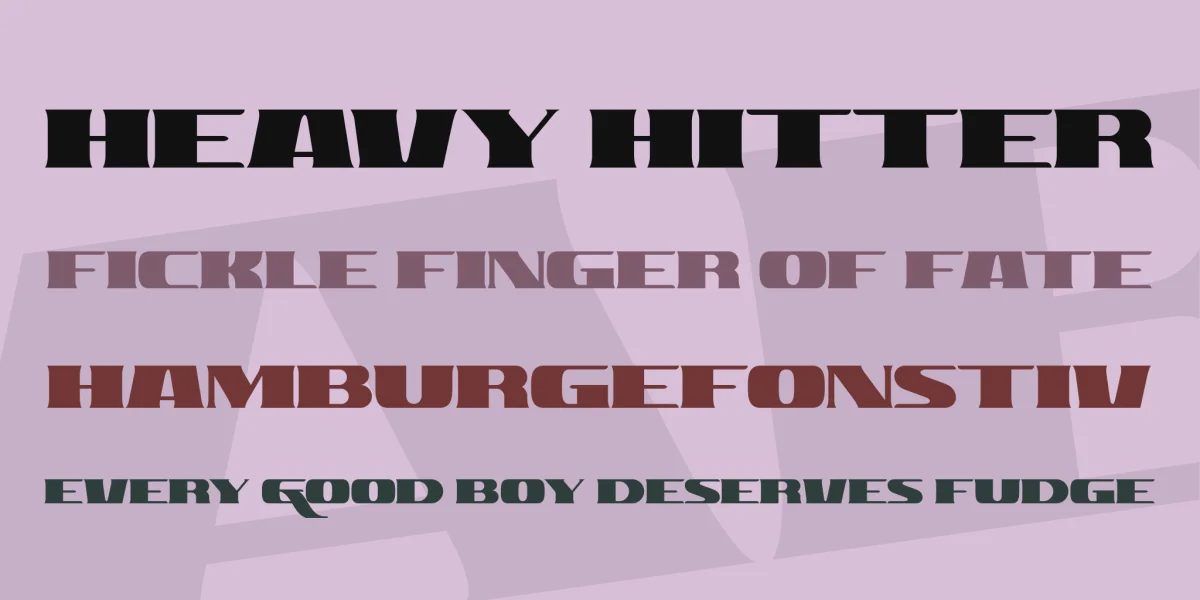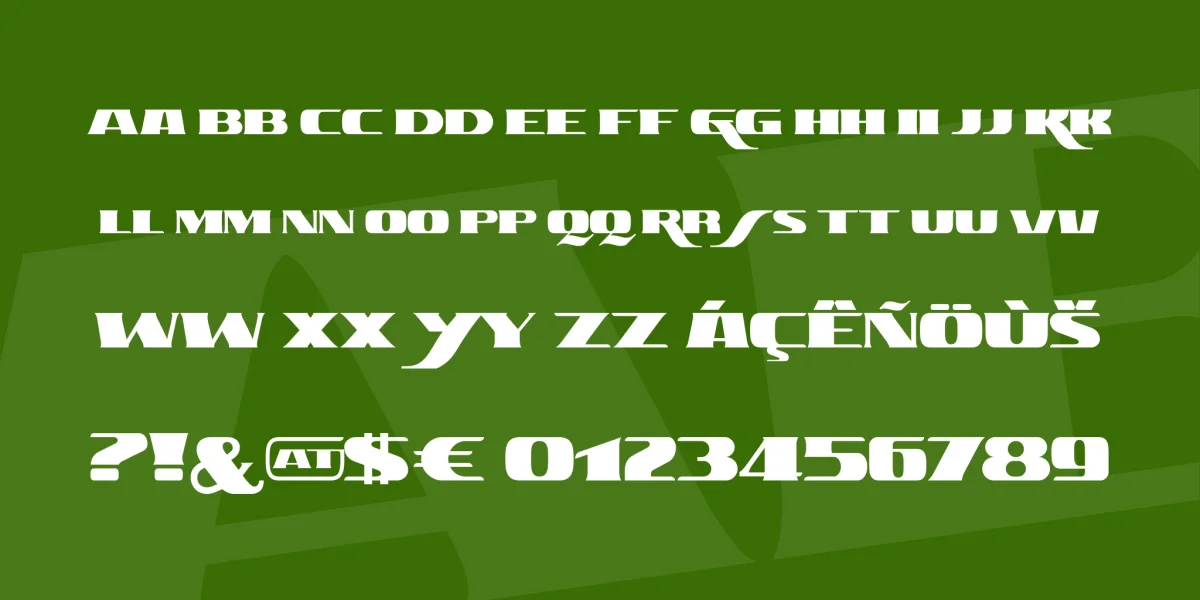
Ascardi Sans is a retro display font with a touch of murkiness to it. Inspired by American advertising, Italian posters, logos and signs from the 1960’s until late in the 20th Century. This typeface is designed for headlines, posters and corporate identities.
The characters were originally hand drawn with a ‘Parallel Pen’.
In an all-caps font including 5 characters featuring dramatic descenders and tails.
This font is suitable for posters, logos and headlines. It also includes diacritic symbols and graphemes that support most European languages.